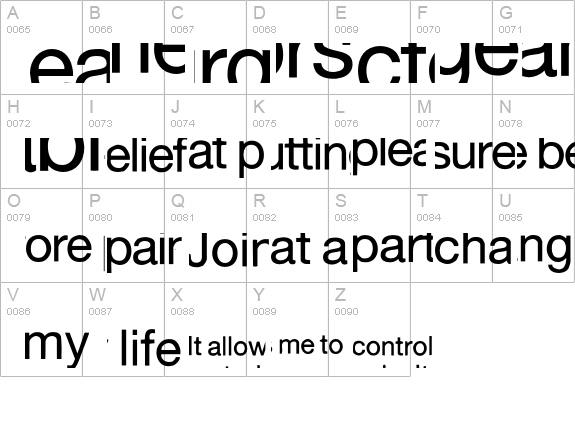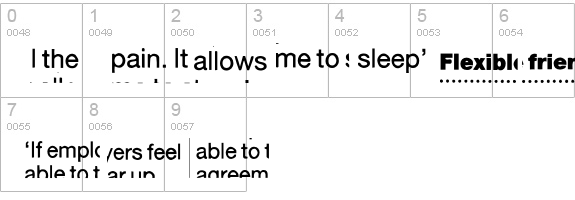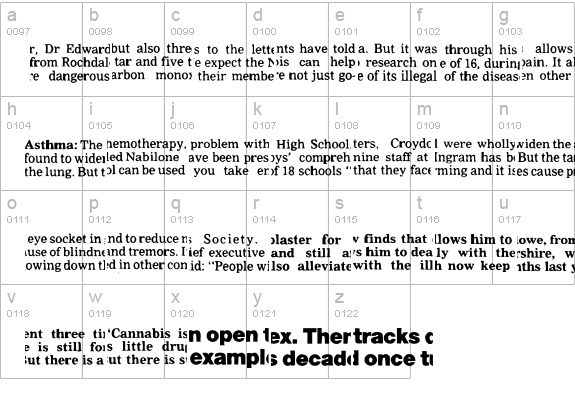
EchoPageThree Font Details
Introducing EchoPageThree, a captivating and versatile font that is sure to leave a lasting impression. With its unique blend of elegance and modernity, this font effortlessly adds a touch of sophistication to any design project. EchoPageThree boasts a wide range of weights and styles, allowing for endless creative possibilities. Whether you're designing a logo, website, or print materials, this font is guaranteed to make your text pop and captivate your audience. What sets EchoPageThree apart is not only its stunning aesthetics, but also its accessibility. It is freely available to download at FontsMarket.com, allowing designers of all levels to enjoy the beauty and functionality of this remarkable font without any constraints. Designed with meticulous attention to detail, EchoPageThree offers clean lines, beautifully balanced curves, and legibility at any size. Its remarkable versatility makes it suitable for a wide range of applications, from branding and advertising to editorial design and beyond. With EchoPageThree, you can effortlessly evoke a sense of sophistication and professionalism in your designs. Its timeless elegance and modern appeal make it a perfect choice for those who seek to make a bold statement while maintaining a touch of refinement. So why wait? Download EchoPageThree today for free at FontsMarket.com and unlock a world of creative possibilities. Elevate your designs with this extraordinary font and captivate your audience with its undeniable charm and versatility.